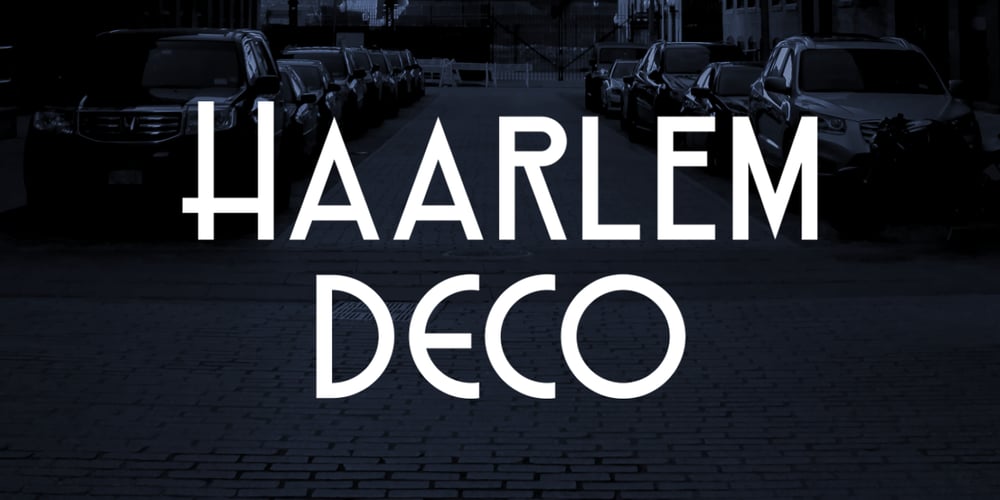
Haarlem Deco Font Family was designed by Fahrizal Tawakkal and published by Fontdation. Haarlem Deco contains 3 styles and family package options. Introducing Haarlem Deco, all-caps sans serif typeface with an art-deco touch. A mix from the old Euro-American signage/advertising letters and modern clean sans serif, carefully mousecrafted to bring you the genuine feel of the era. If you’re into classic/vintage letter designs, then this typeface suits best for you. Packed with 300+ glyphs (alternate and multilingual characters included), now it’s your time to go crazy and explore the uniqueness of this typeface! CONTENTS: – Upper and lowercase, – Numeral and punctuations, – Multilingual characters, – Alternate characters (OpenType features), – Two formats; .otf and .ttf – Lots of fun and joy! THANKS, AND ENJOY HAARLEM DECO!